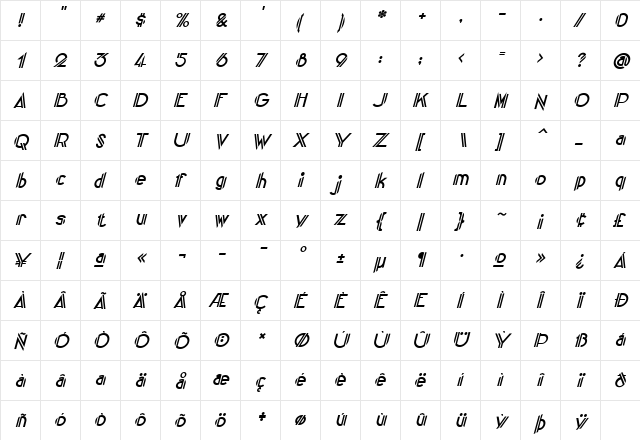
CentreClawsSlant Regular
| Foundry | Peter Wiegel |
| Designer | Peter Wiegel |
CentreClawsSlant is a composed and adaptable typeface that performs quietly and consistently across a wide range of design contexts.